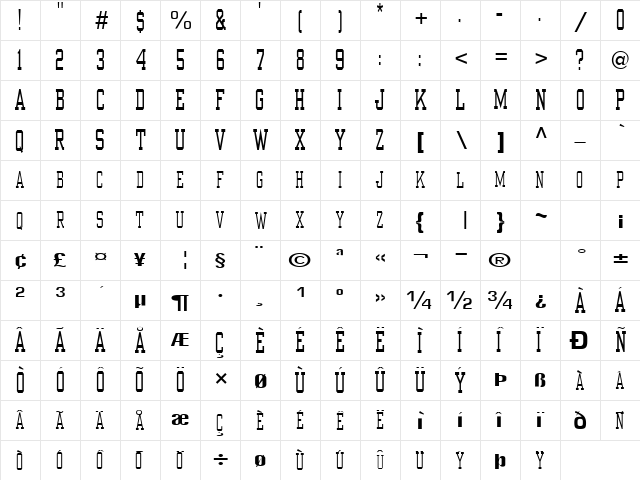
CastanetSCapsSSK Regular
Design Context for CastanetSCapsSSK Typeface
CastanetSCapsSSK offers clean, dependable letterforms without strong stylistic allegiance, making it a practical choice for designers who need flexibility.